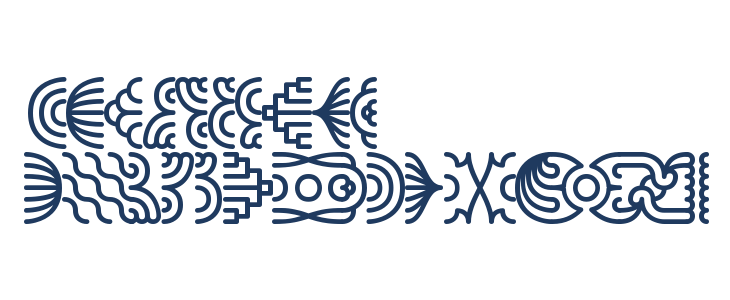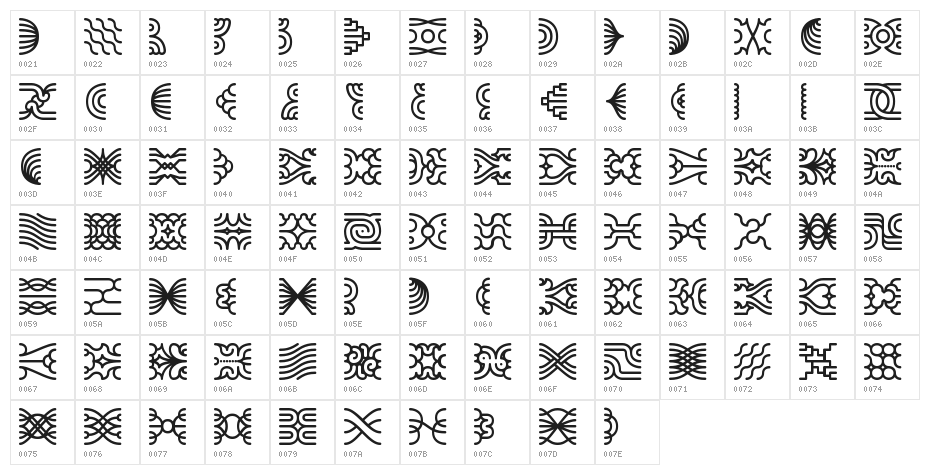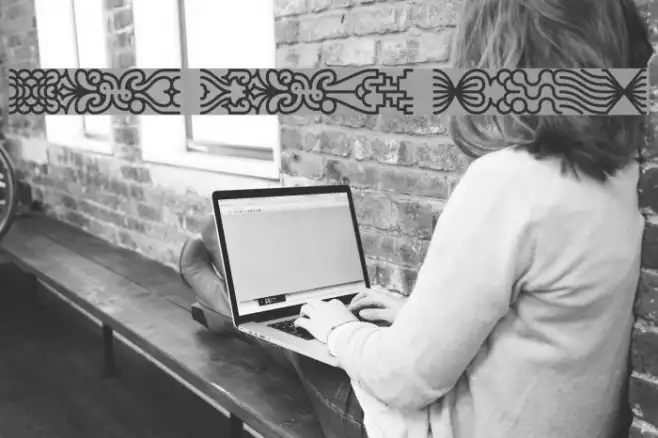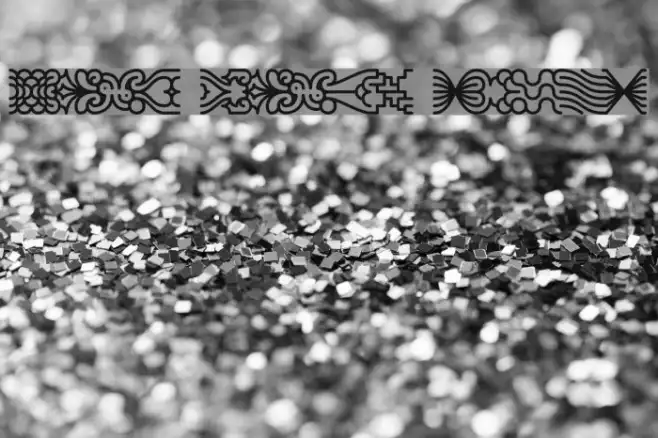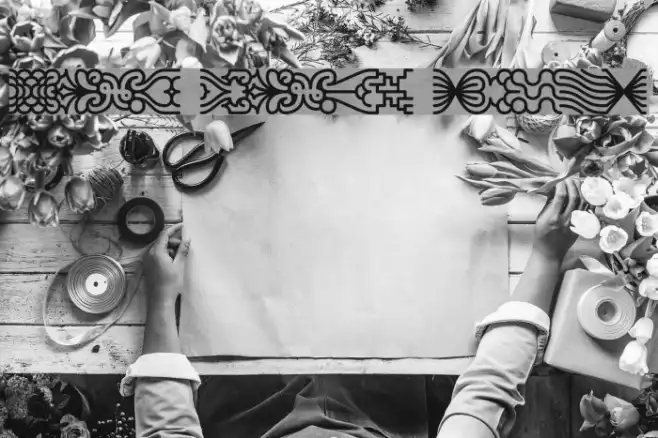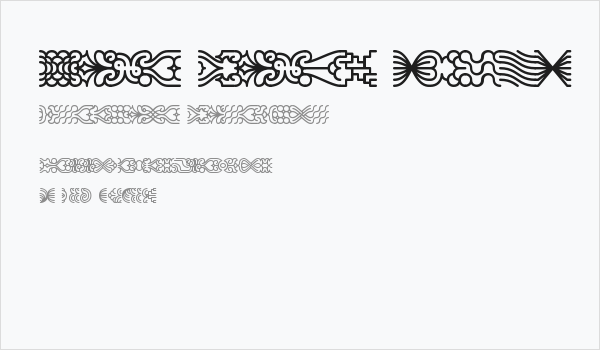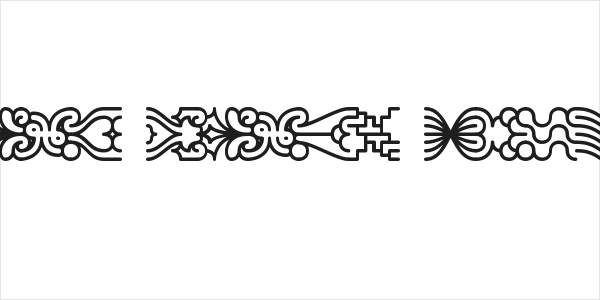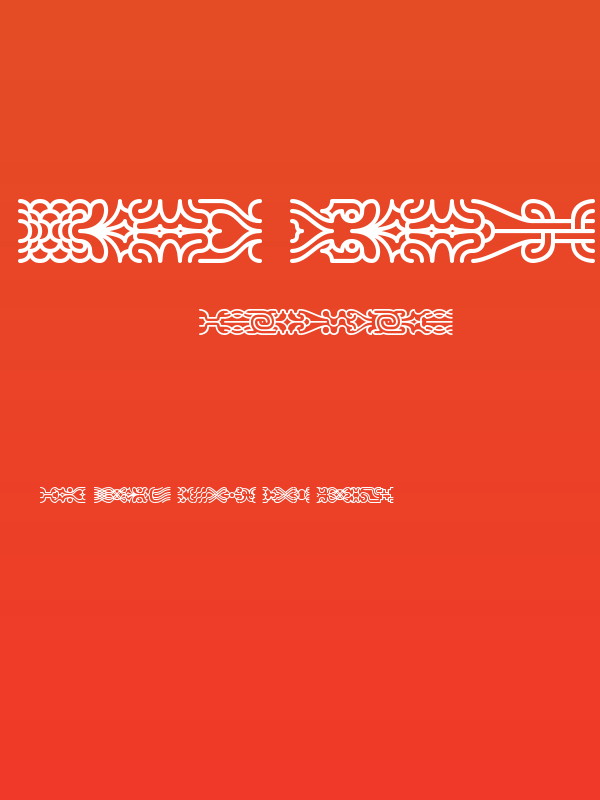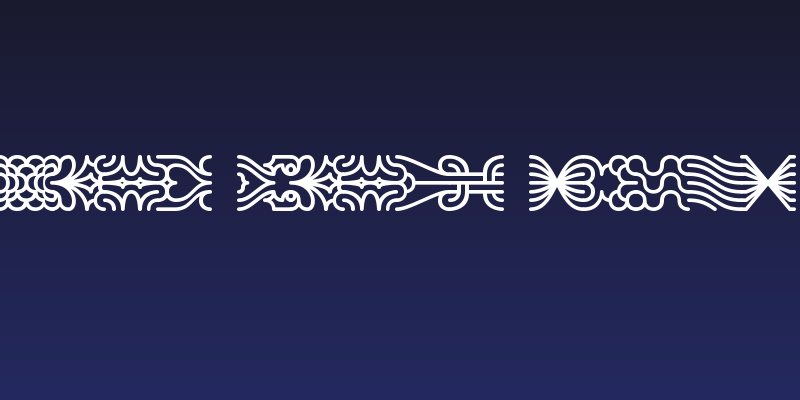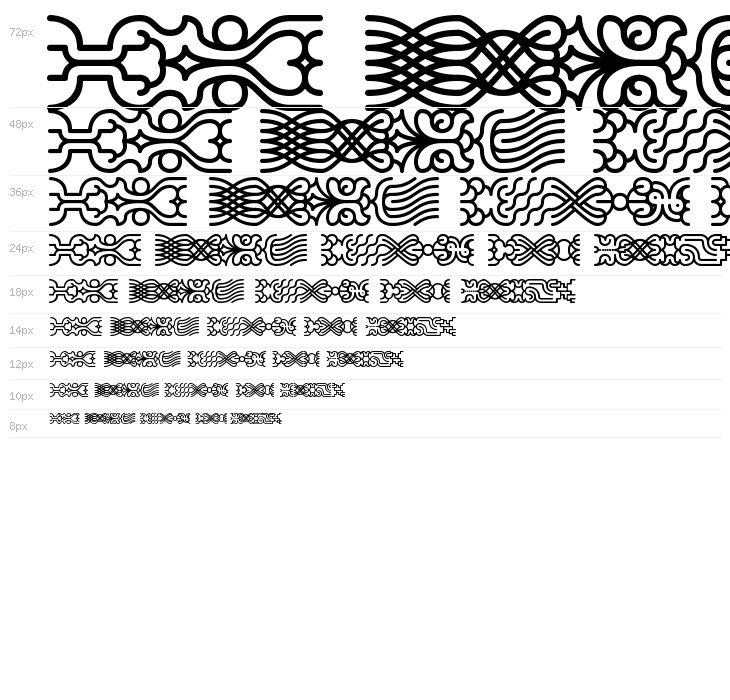
Line Dings [BRK] Font
Line Dings [BRK] Description
This collection features a series of intricate, decorative line designs that are highly stylized and abstract. Each element is composed of complex patterns and shapes, resembling ornate borders or dividers. The designs are symmetrical and exhibit a high level of detail, with swirling lines and geometric motifs. These elements are bold and visually striking, making them suitable for decorative purposes. The overall aesthetic is reminiscent of vintage or art nouveau styles, with a modern twist. The designs are versatile and can be used to add an artistic flair to various projects.
| Use Case | Decorative elements, Graphic design, Artistic projects |
| Proposed Projects | Ideal for decorative borders, invitations, graphic design elements, or artistic projects. |